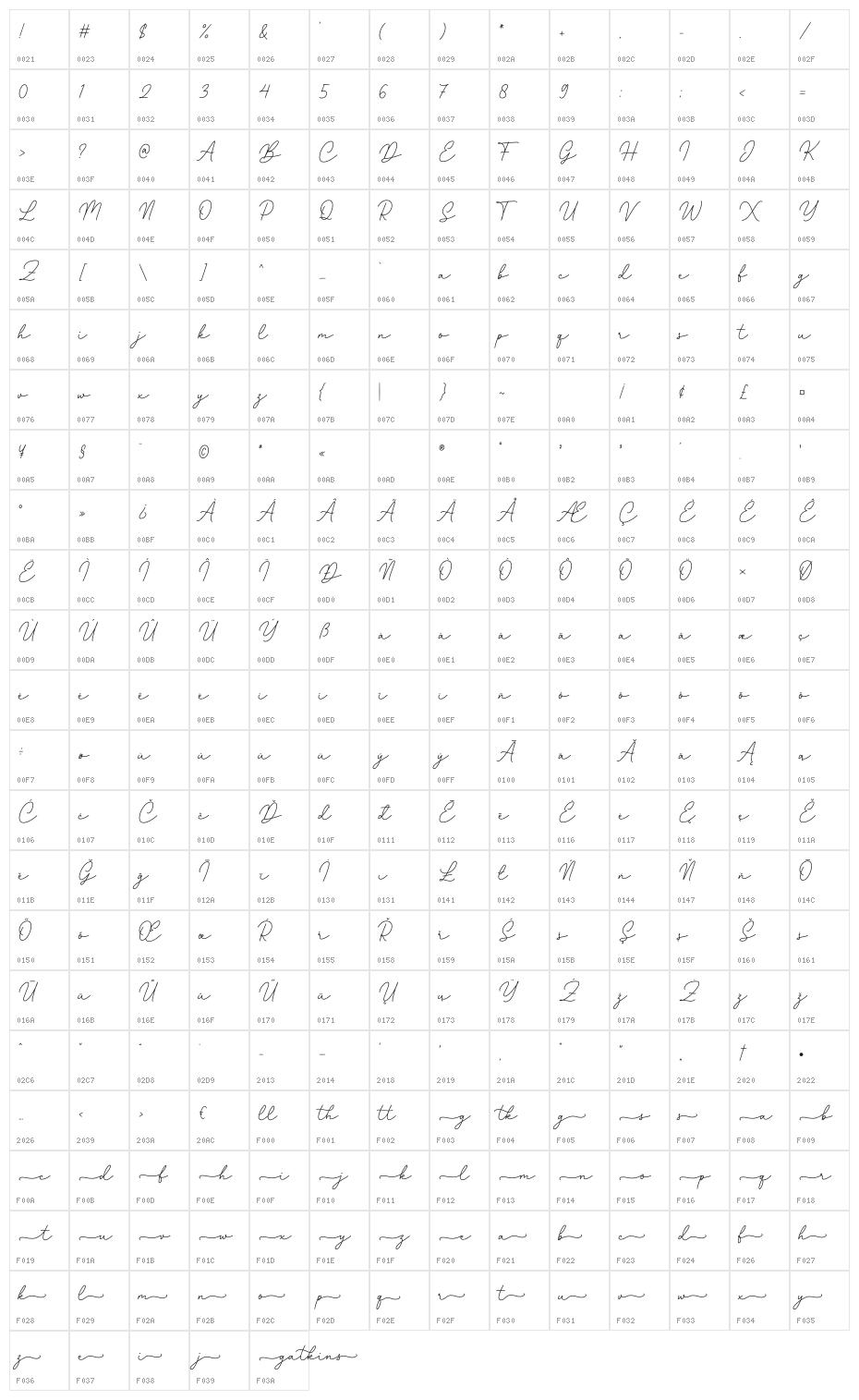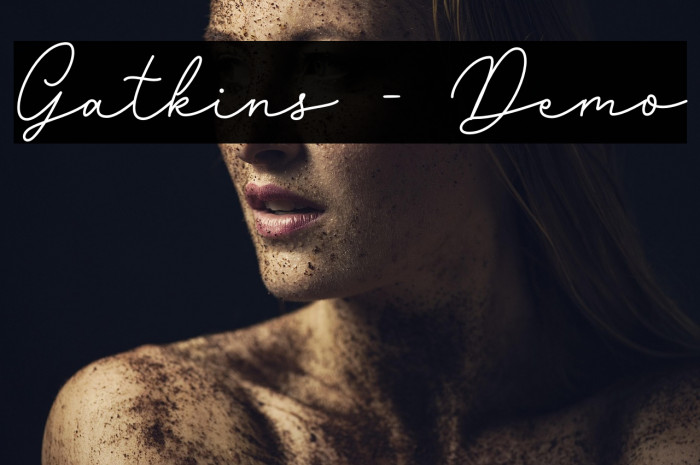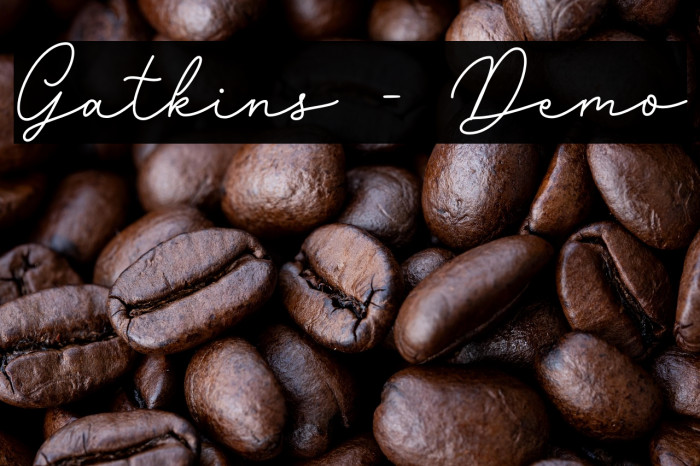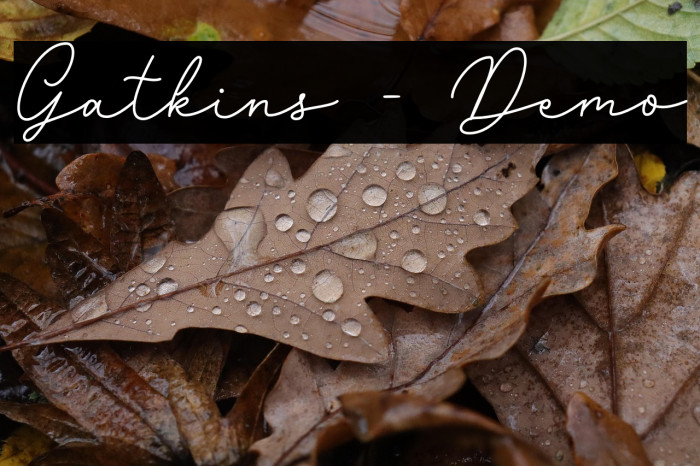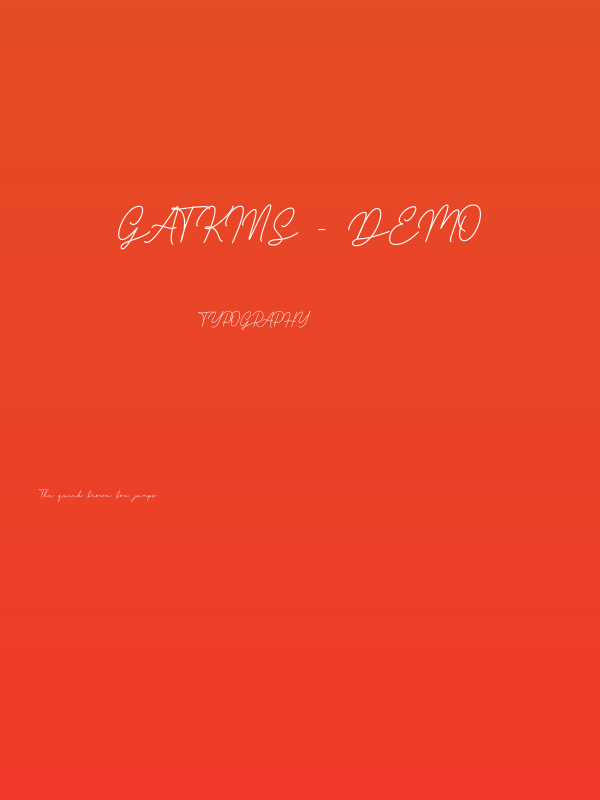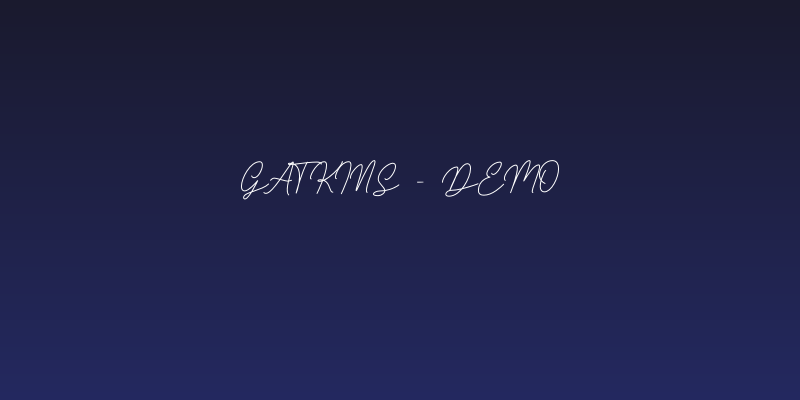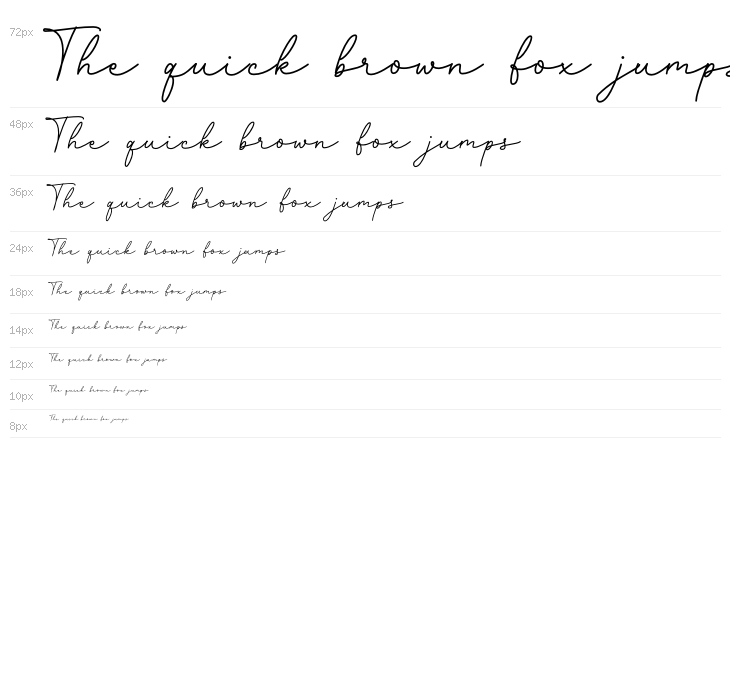
Gatkins - Demo Font
Gatkins - Demo Description
This elegant script font features a flowing, cursive style that mimics natural handwriting. The characters are connected in a fluid manner, giving it a sophisticated and graceful appearance. The uppercase letters are slightly larger and more ornate, while the lowercase letters maintain a consistent and smooth flow. The numerals are clear and legible, complementing the overall style. Special characters are included, maintaining the font's cohesive look. This font is perfect for projects that require a personal touch, such as invitations, greeting cards, or branding materials.
| Overall Style | Elegant, Handwritten |
| Use Case | Headlines, Invitations, Branding |
| Proposed Projects | Ideal for wedding invitations, personal branding, greeting cards, and elegant stationery. |